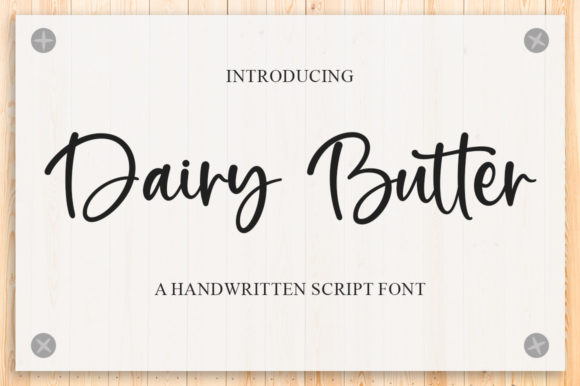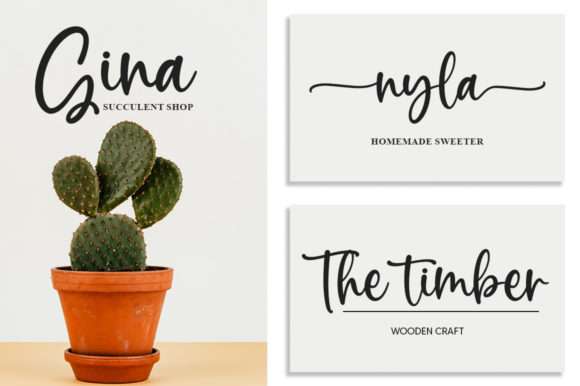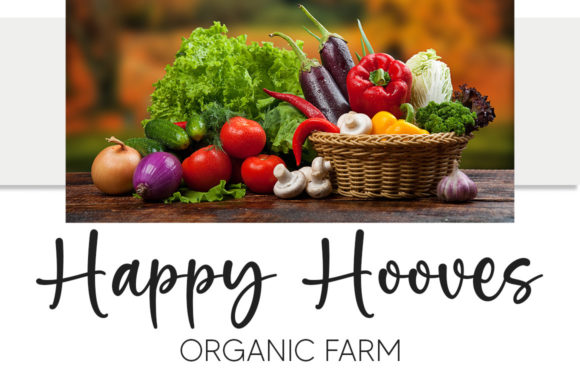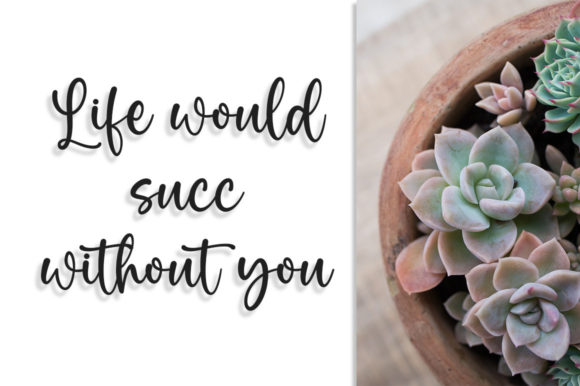
About Dairy Butter Font
Dairy Butter is a delicate, elegant, and flowing handwritten font. It has beautiful and well-balanced characters and as a result, it matches a wide pool of designs. Dairy Butter is PUA encoded, which means you can access all of the glyphs and swashes with ease!